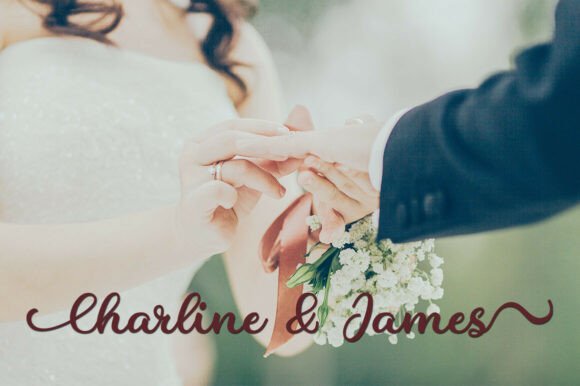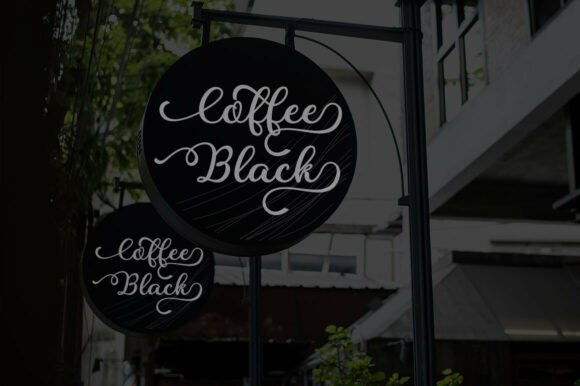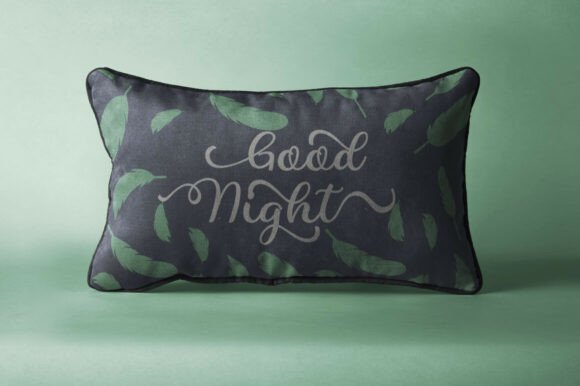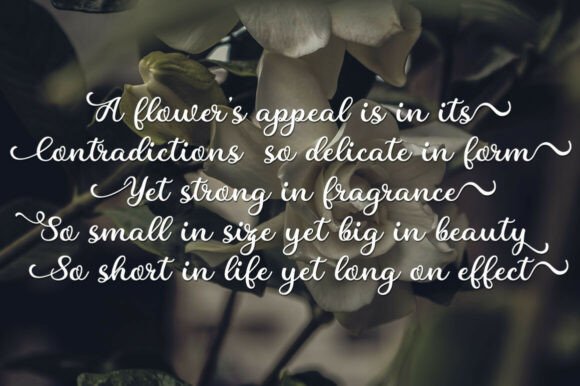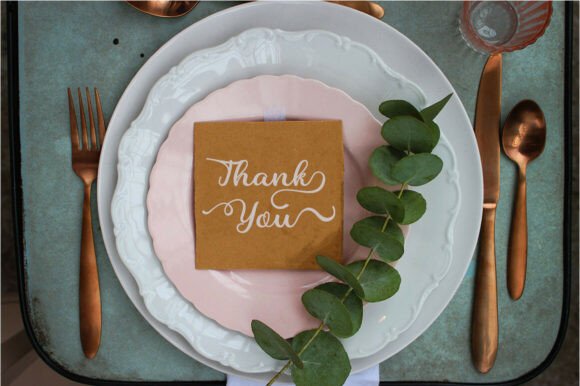
Introducing Charline Font: A Fresh and Modern Script with Handmade Calligraphy
Are you looking for a unique and stylish font to elevate your designs? Look no further than Charline Font, a beautiful script font that combines handmade calligraphy with decorative characters and a dancing lineage. This stunning font is perfect for creating invitations, greeting cards, branding materials, business cards, quotes, posters, and more.
What Makes Charline Script So Special?
Charline Script is a modern and fresh font that stands out from the crowd. With its handmade calligraphy and decorative characters, it adds a touch of elegance and sophistication to any design. The font comes with 497 glyphs, including alternate characters that can be accessed through Open Type features. This means you can create unique and varied designs with just one font.
Open Type Features
Charline Script comes with a range of Open Type features that make it easy to access alternate characters. These features include:
- Swash: Add a touch of drama and flair to your designs with swash characters.
- Stylistic Sets: Create unique and varied designs with stylistic sets.
- Stylistic Alternate: Access alternate characters to add some extra style to your designs.
- Contextual Alternate: Create natural and flowing text with contextual alternate characters.
PUA Unicode and Code
Charline Script also has a PUA unicode code, which makes it easy for craftsmen and designers to access all the alternate characters. This means you can easily create unique and varied designs without having to manually edit the font.
Font Features
Charline Script comes with a range of features that make it perfect for designers and crafters. These include:
- Uppercase and lowercase letters
- International signature and symbol
- Punctuation support
- PUA number
- Unicode style
- Style alternative
- Contextual character variations (range 1-13)
Charline Script is perfect for designers and crafters who want to add a touch of elegance and sophistication to their designs. Whether you’re creating invitations, greeting cards, or branding materials, this font is sure to impress. With its handmade calligraphy and decorative characters, it’s the perfect way to add some extra style to your designs.
In conclusion, Charline Font is a stunning script font that combines handmade calligraphy with decorative characters and a dancing lineage. With its range of Open Type features, PUA unicode code, and 497 glyphs, it’s the perfect font for designers and crafters who want to create unique and varied designs. Whether you’re creating invitations, greeting cards, or branding materials, Charline Script is sure to elevate your designs to the next level.